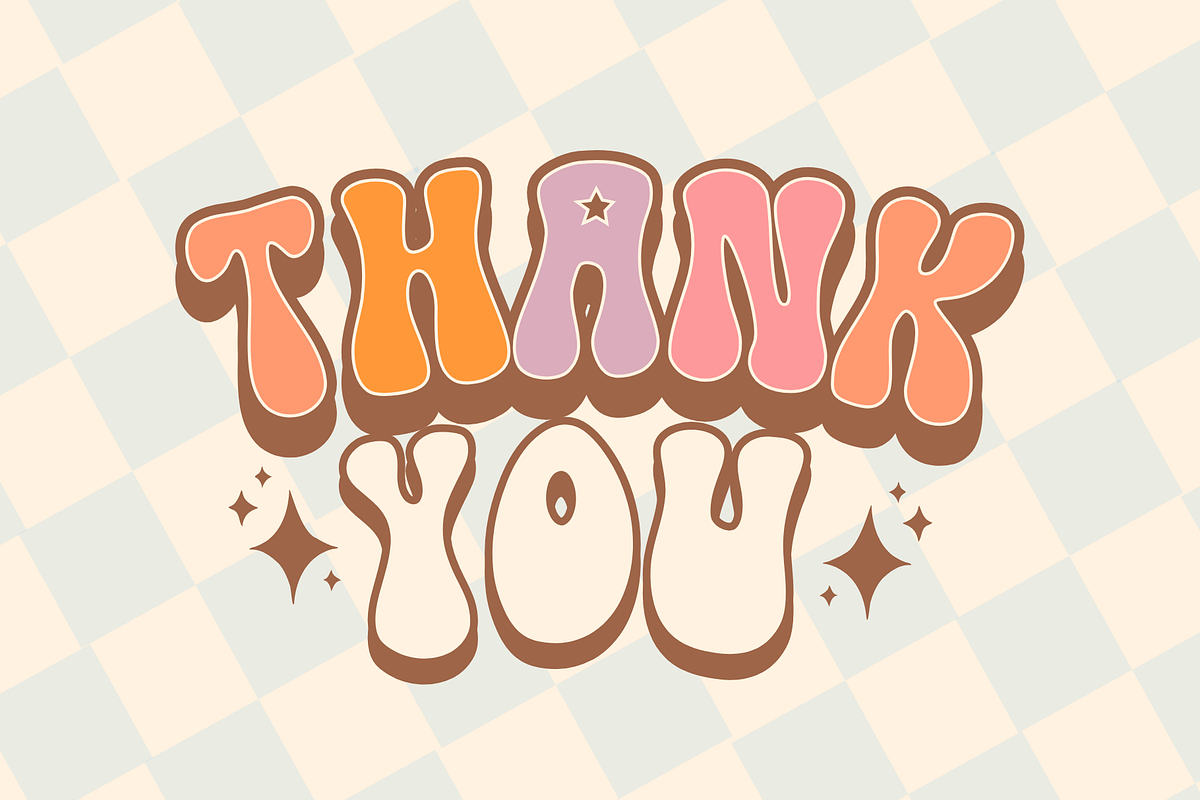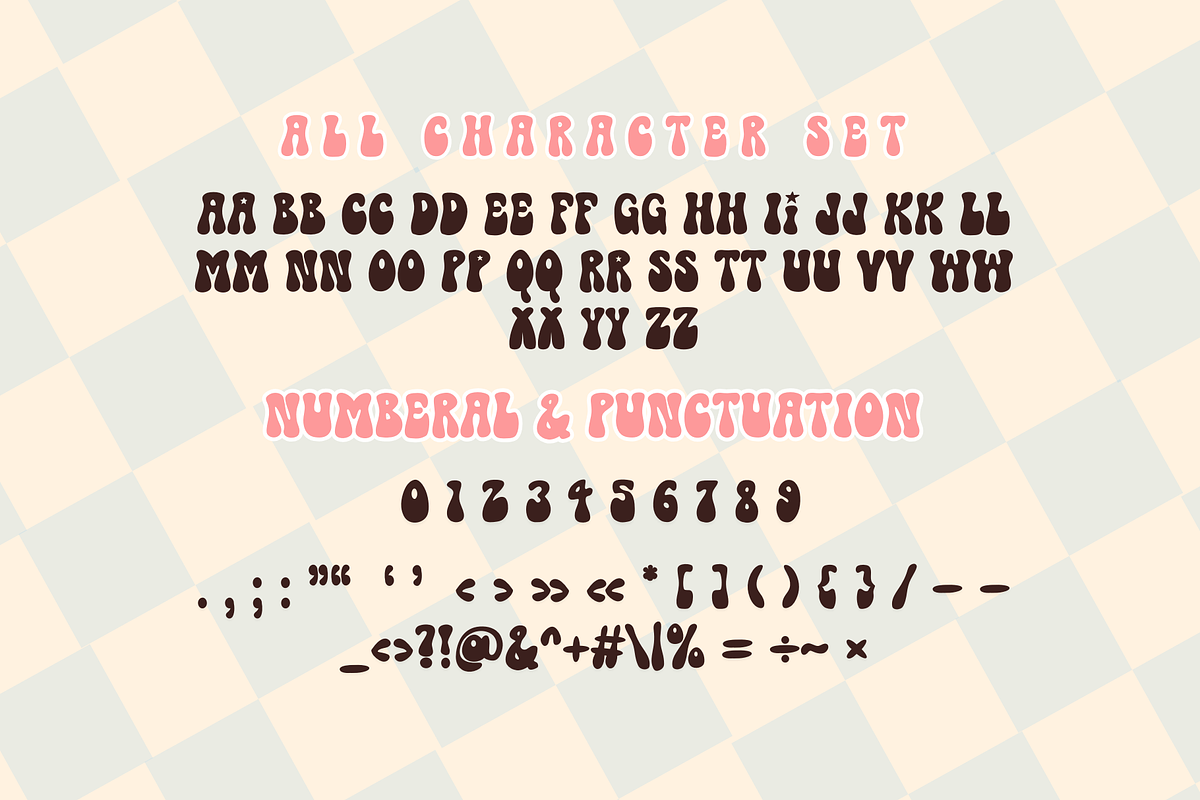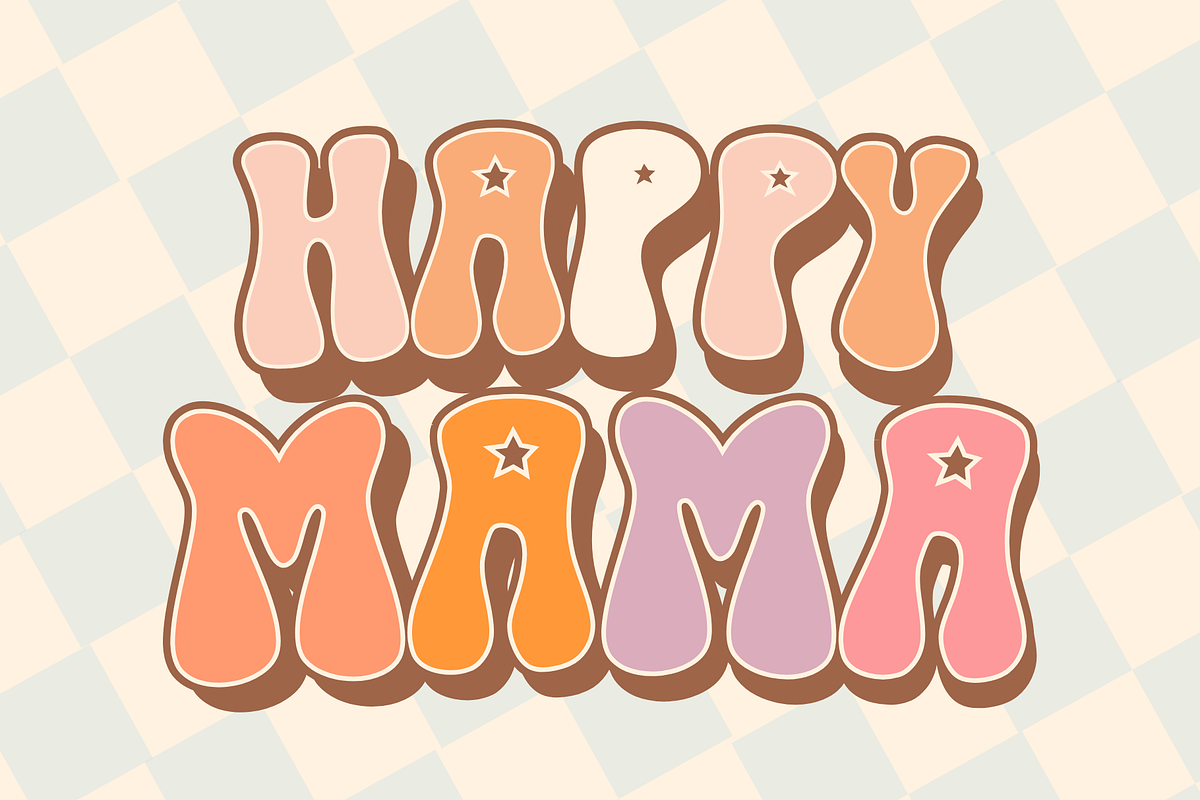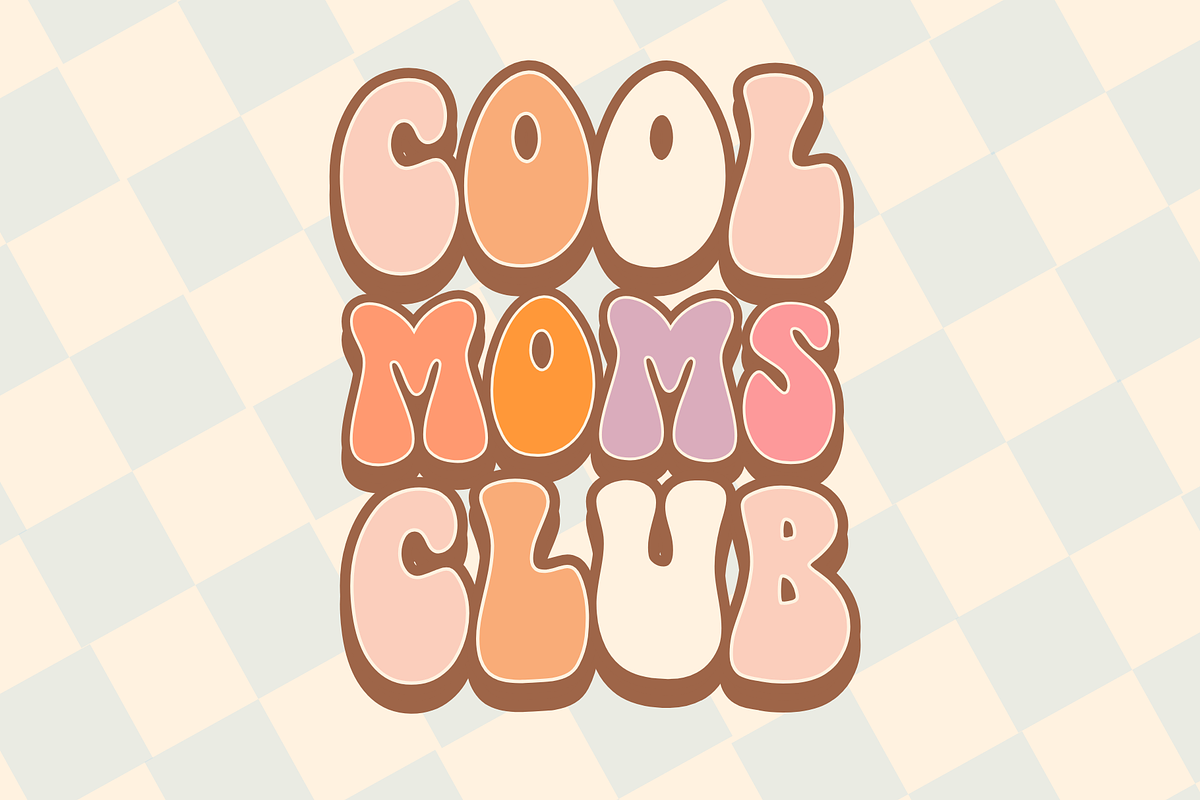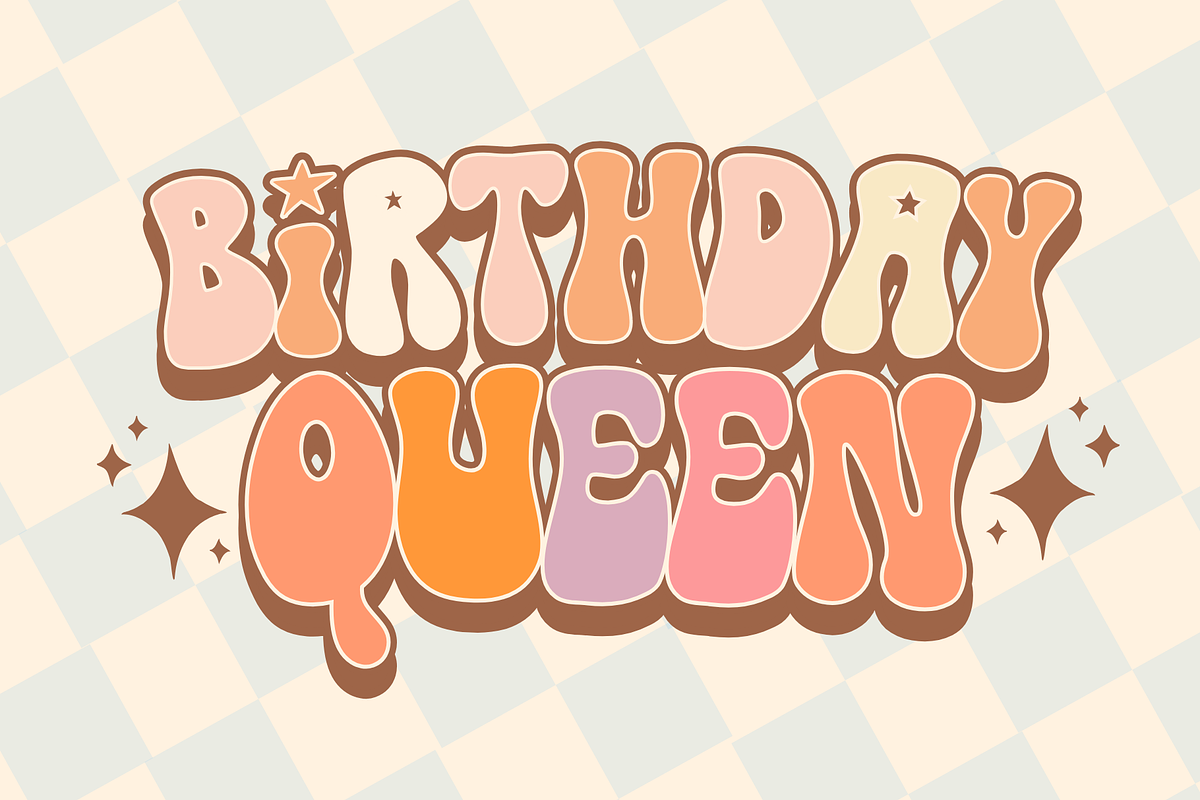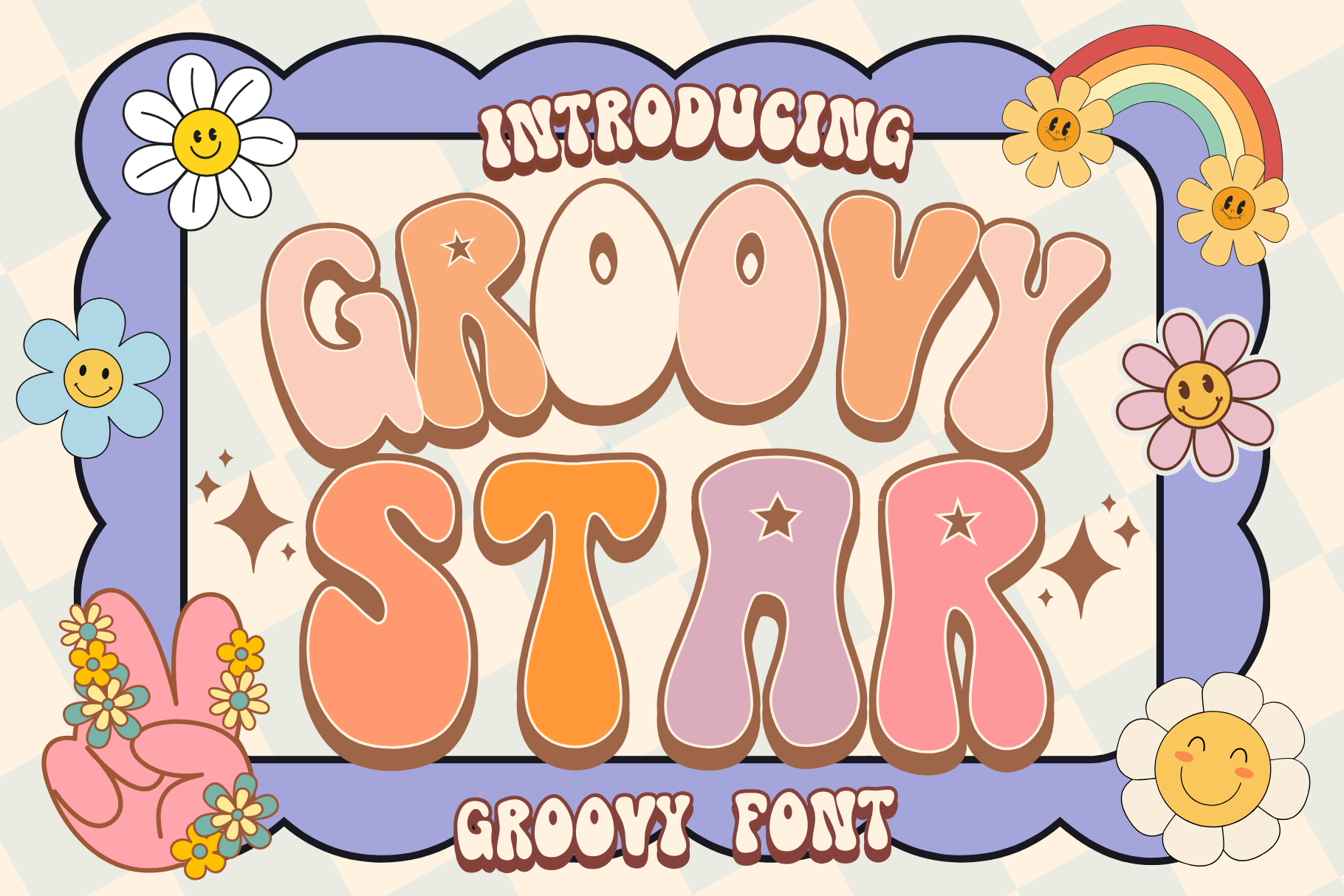
Groovy Star is a groovy font
Groovy Star is a stylish retro groovy font. Ideal for all your hippie-inspired designs, It embodies playfulness and authenticity and is the perfect choice for all your favorite projects, or even for blog posts, logos, branding, ads, invitations, greeting cards, planners, photo albums, decorations, and much more. Add it to any of your designs, and enjoy the results!